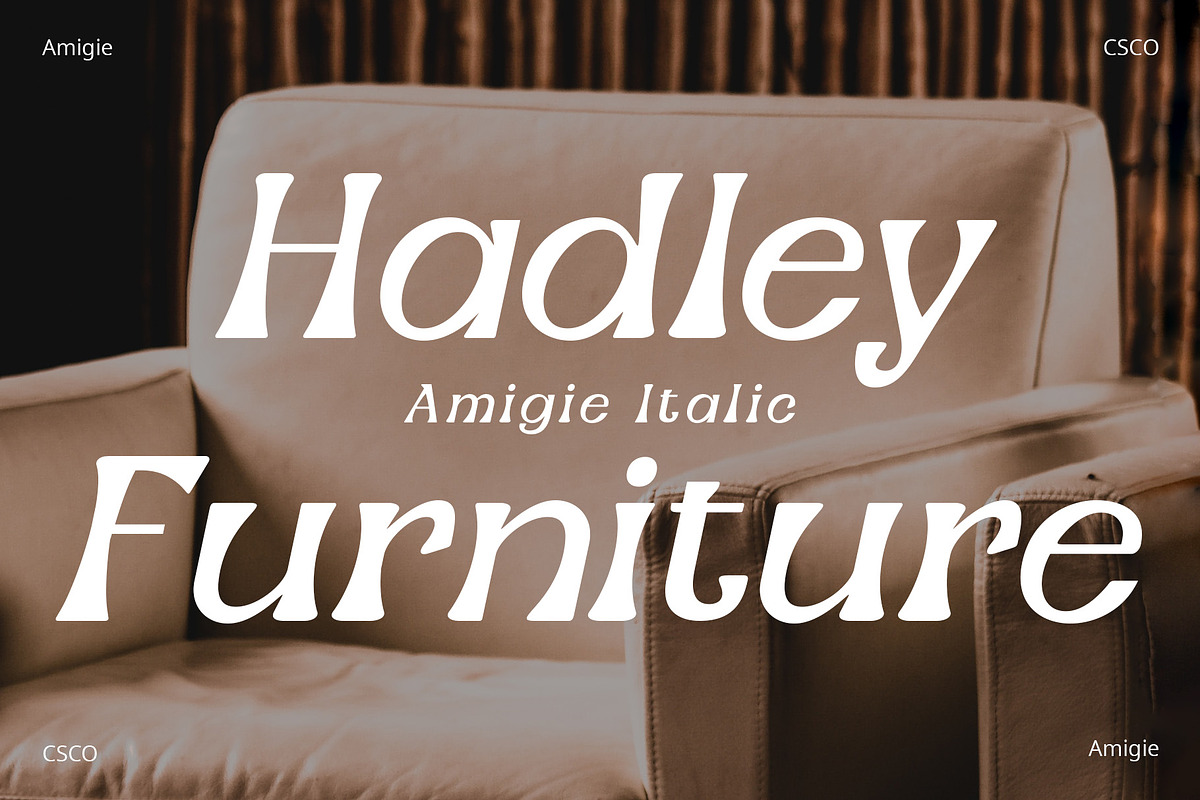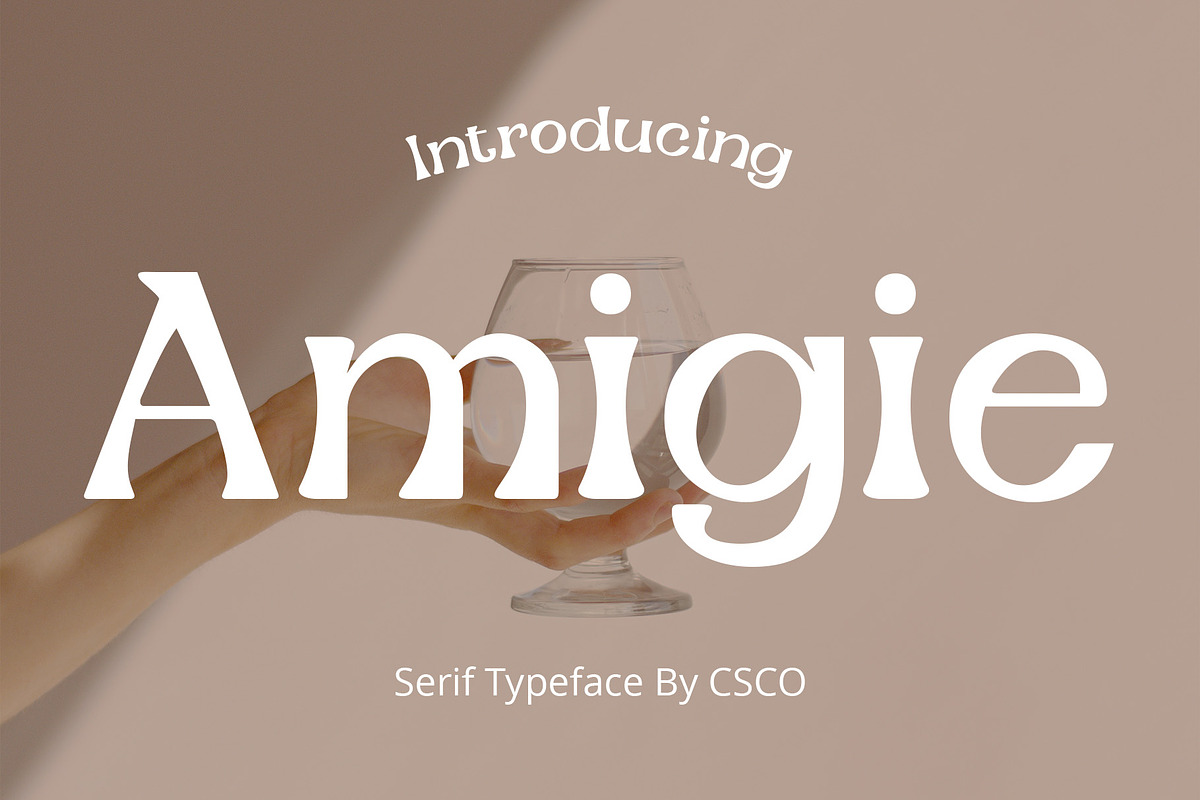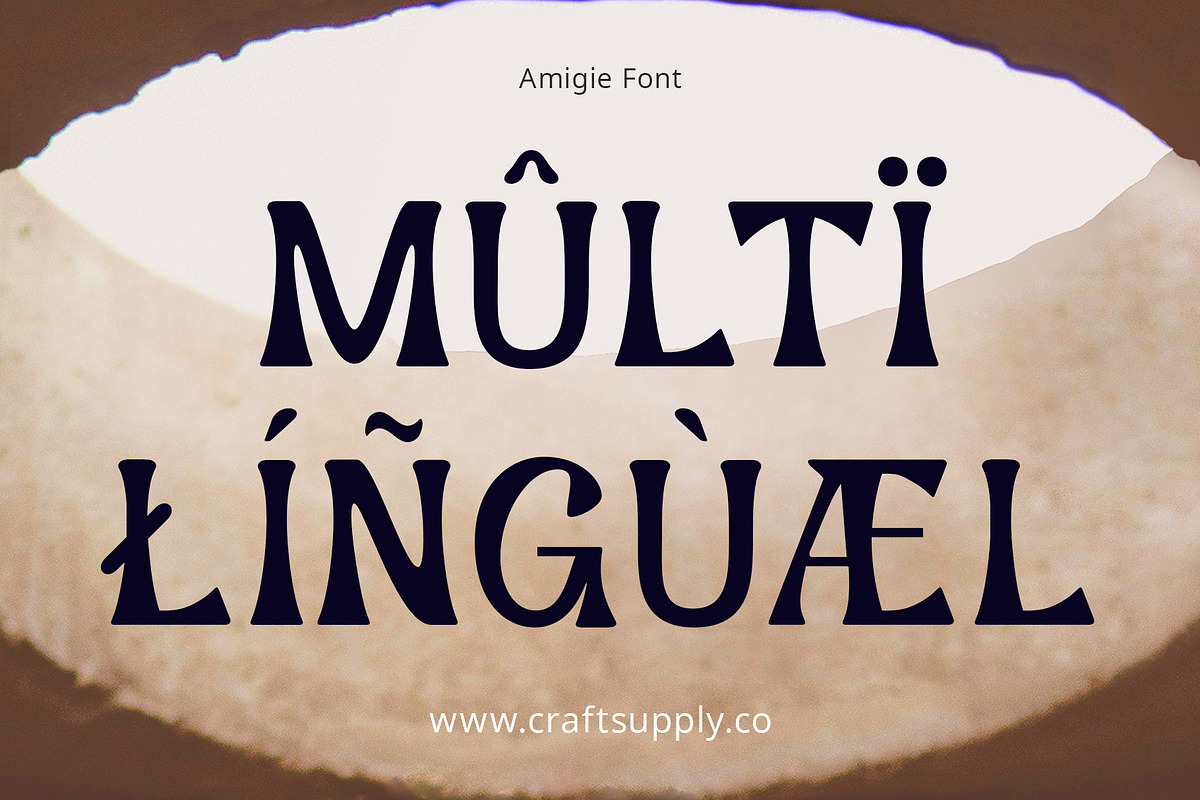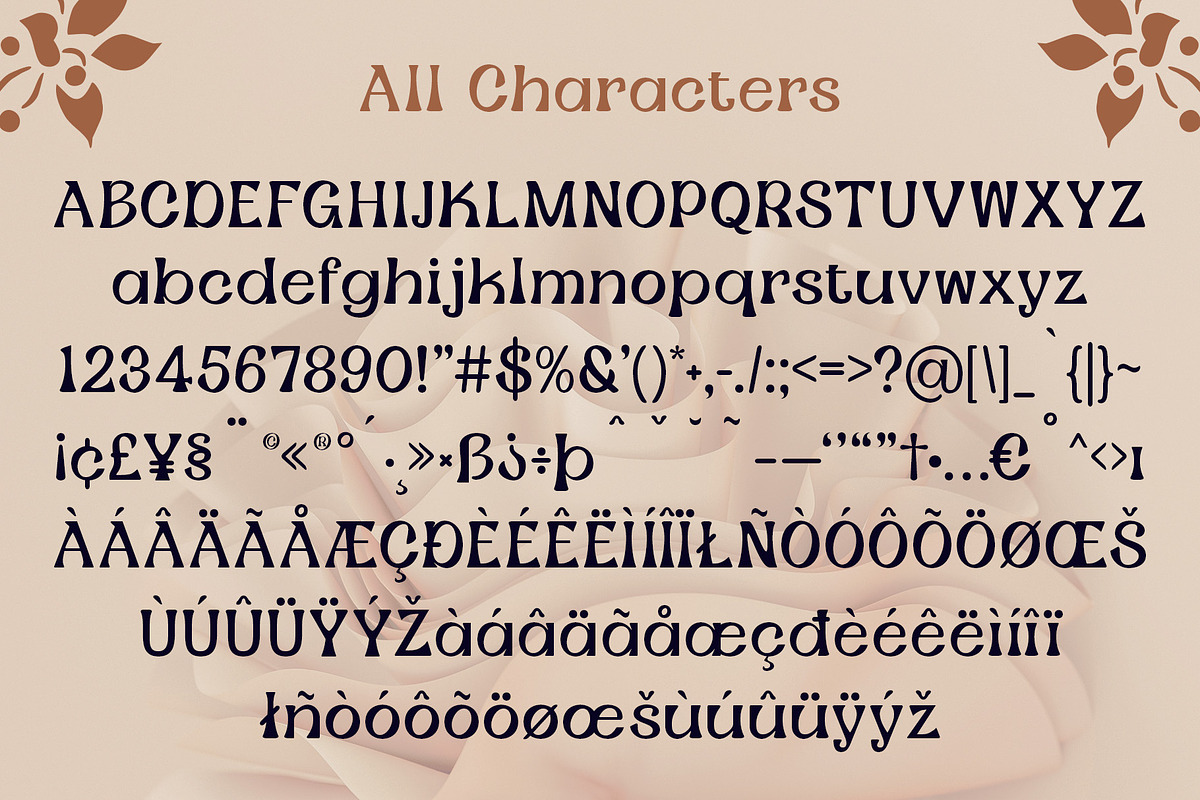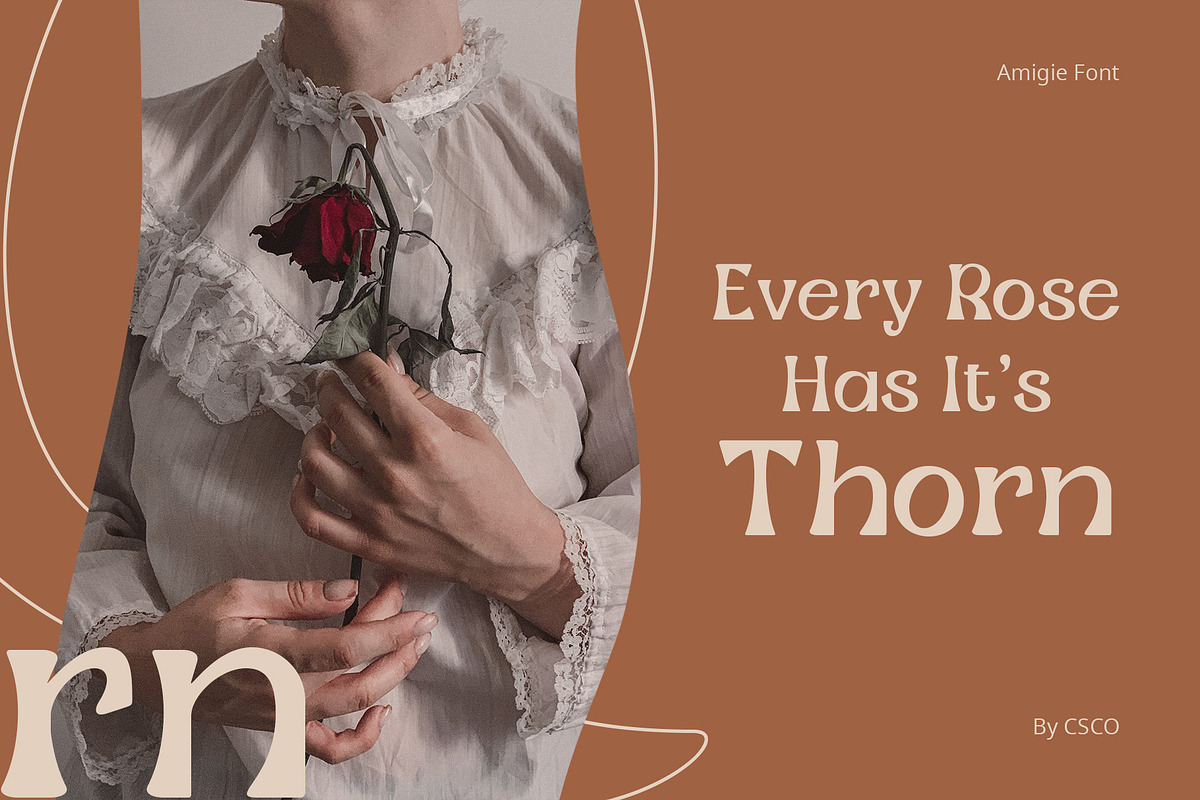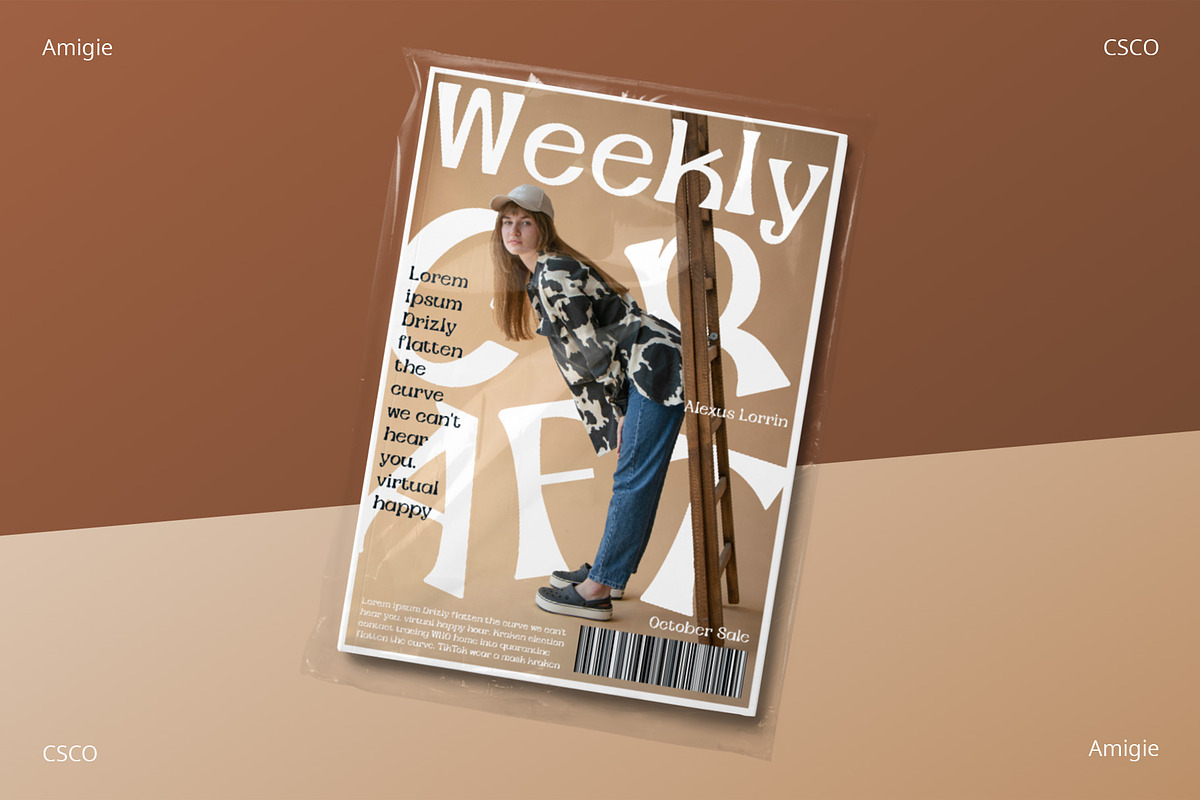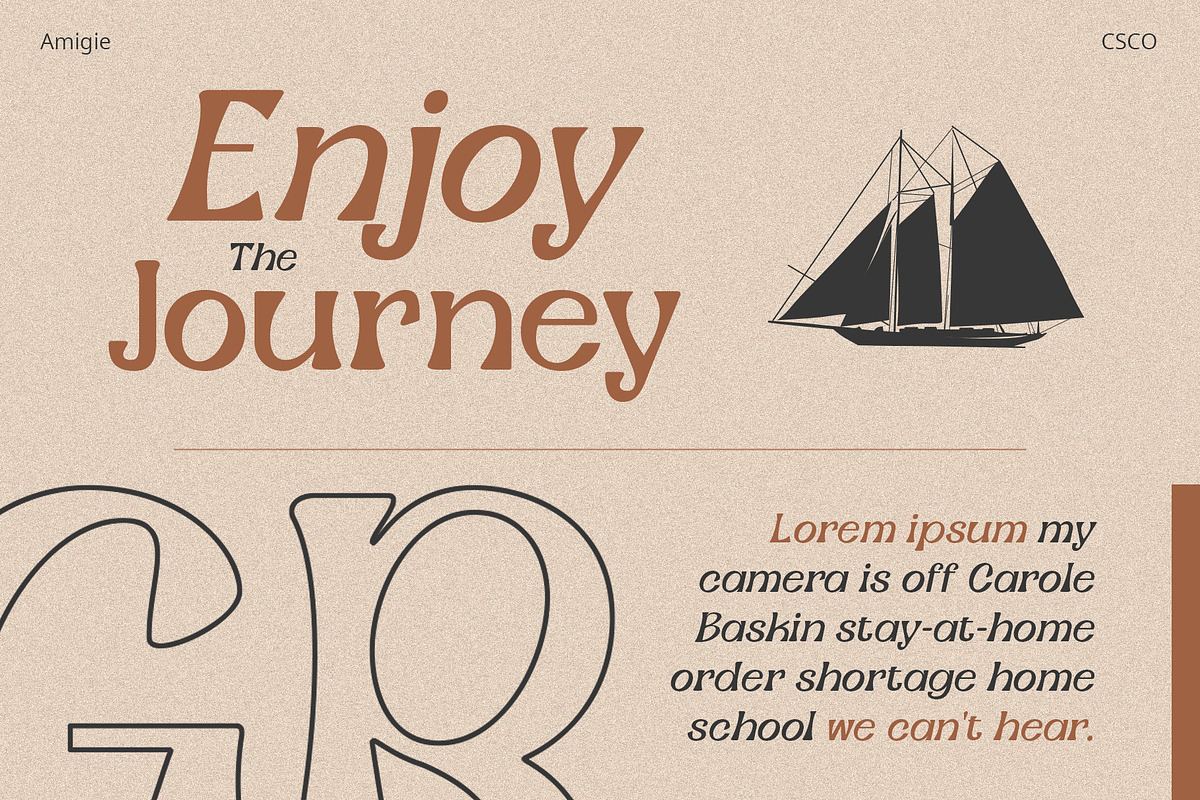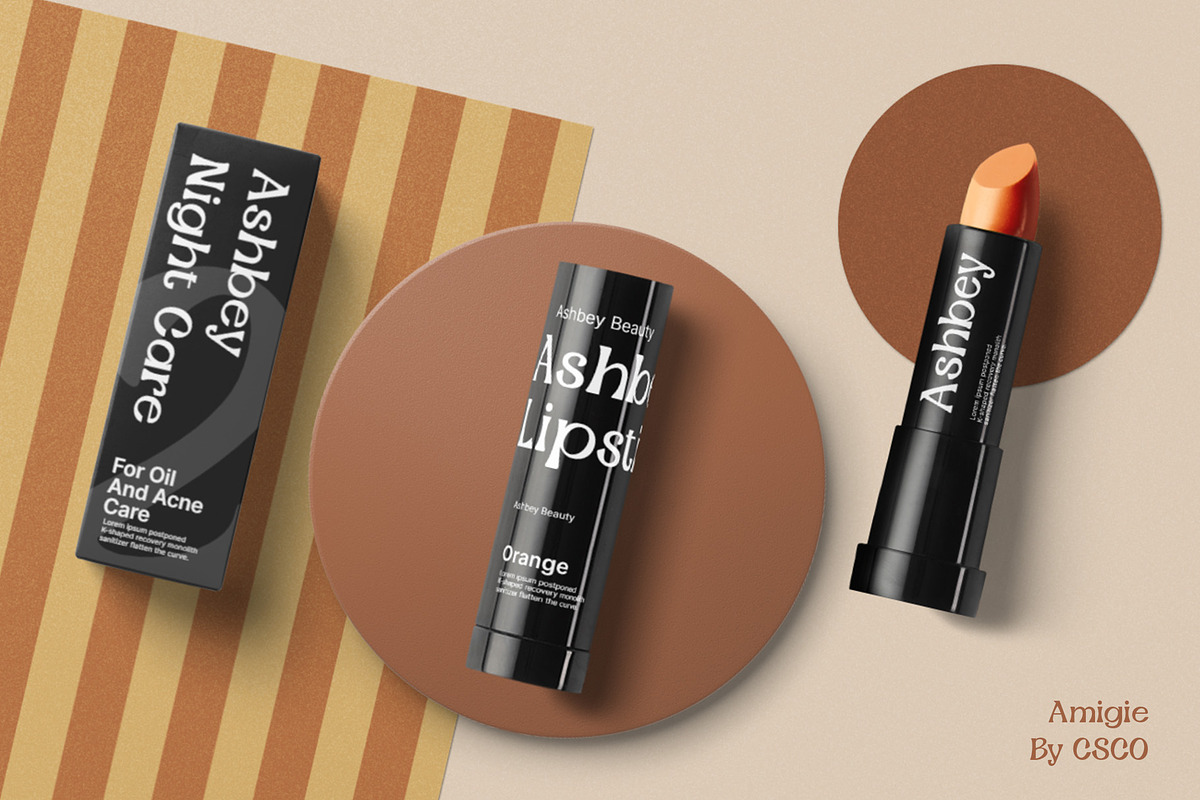
Amigie – Display Serif
Introduction to Amigie – Display Serif is a unique display font that stands out with its distinctive serif design. Its bold and innovative shape makes it perfect for eye-catching displays and powerful branding. This font captures attention, offering a fresh take on traditional serif styles.
Design and Innovation Each character in Amigie – Display Serif boasts a unique serif shape, blending classic elegance with modern creativity. The font features sharp, clean lines, and its unique serifs add a touch of sophistication. Furthermore, its balanced proportion ensures that each letter is clear and impactful, perfect for making a statement.
Versatility and Functionality Amigie – Display Serif is not just visually striking but also highly versatile. It’s ideal for a wide range of applications, from editorial designs to bold advertising. Additionally, it works exceptionally well for headlines, logos, and packaging, where its unique character can shine. This font is also highly legible, making it suitable for both digital and print media.
Accessibility and Appeal With its straightforward design, Amigie is accessible to a broad audience. Its simplicity ensures easy readability, appealing to designers and viewers alike. Moreover, this font strikes a perfect balance between being artistic and functional, making it a great choice for various design projects. In summary, Amigie – Display Serif is a versatile and appealing font that adds a unique touch to any design.
- Amigie Regular
- Amigie Italic